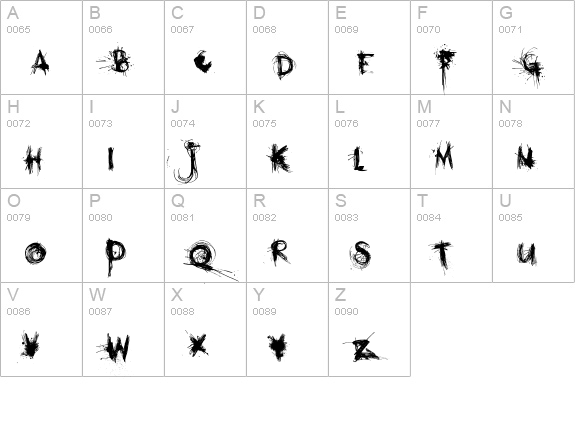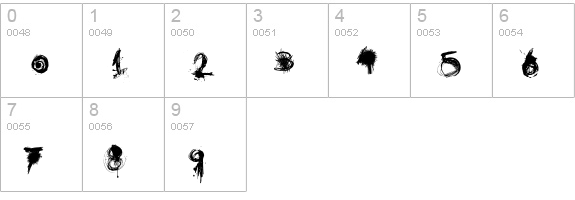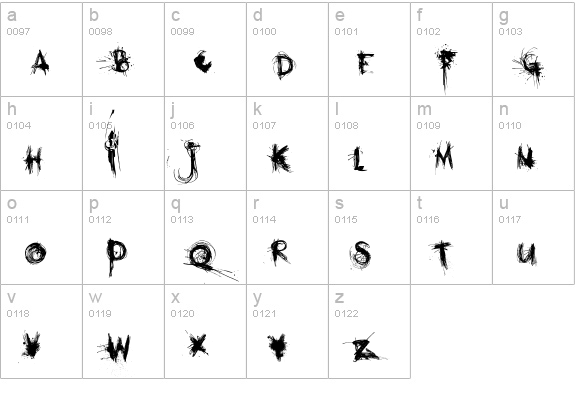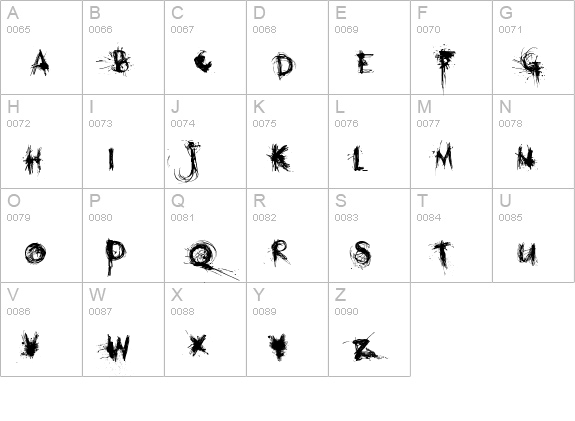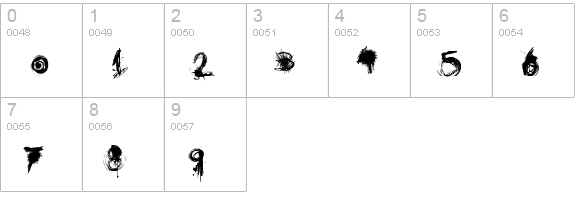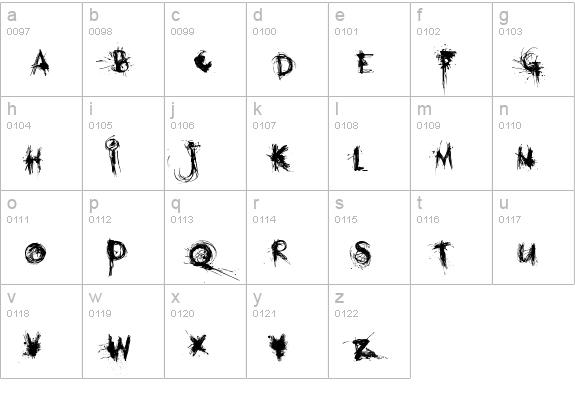
DK Mothman Font Details
Introducing the captivating DK Mothman font, a mesmerizing typeface that will instantly draw attention and add a touch of mystique to any design project. With its unique, slightly distorted letterforms and eerie aesthetic, DK Mothman is perfect for those looking to create an atmosphere of intrigue and curiosity. This font offers a perfect balance between elegance and edginess, making it suitable for a wide range of creative applications. Whether you're working on a poster, logo, book cover, or website design, DK Mothman will effortlessly captivate your audience and leave a lasting impression. One of the most remarkable aspects of DK Mothman is that it is available for free download at FontsMarket.com. Yes, you read that right - this extraordinary font can be yours without spending a dime. Simply head over to FontsMarket.com and immerse yourself in the world of DK Mothman, where you can explore its various weights, styles, and endless possibilities. Designed with meticulous attention to detail, DK Mothman is a versatile and user-friendly font that will make your creative visions come to life. Its modern yet mysterious vibe will elevate your designs to new heights, ensuring that they stand out from the crowd. So, why wait? Unleash your creativity and let DK Mothman guide you through the darkness, illuminating your projects with its captivating charm. Download this extraordinary font for free at FontsMarket.com and prepare to embark on a journey of typography like no other.